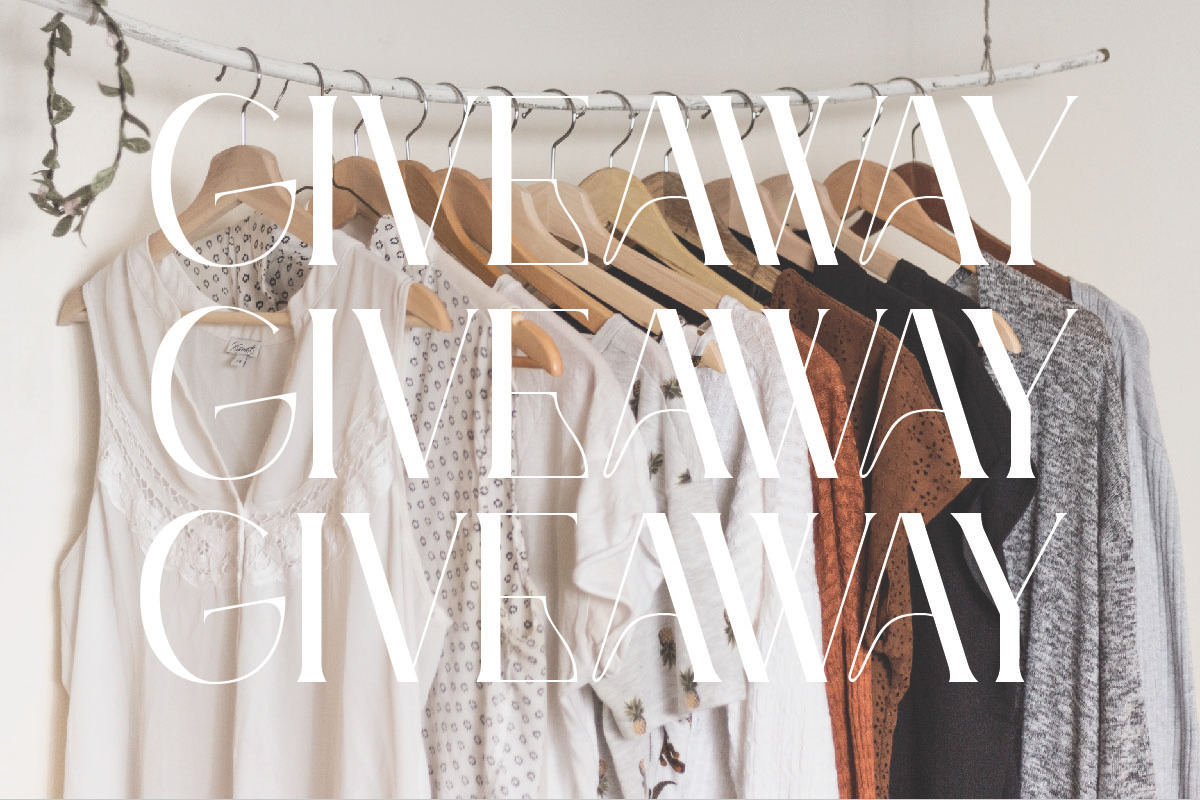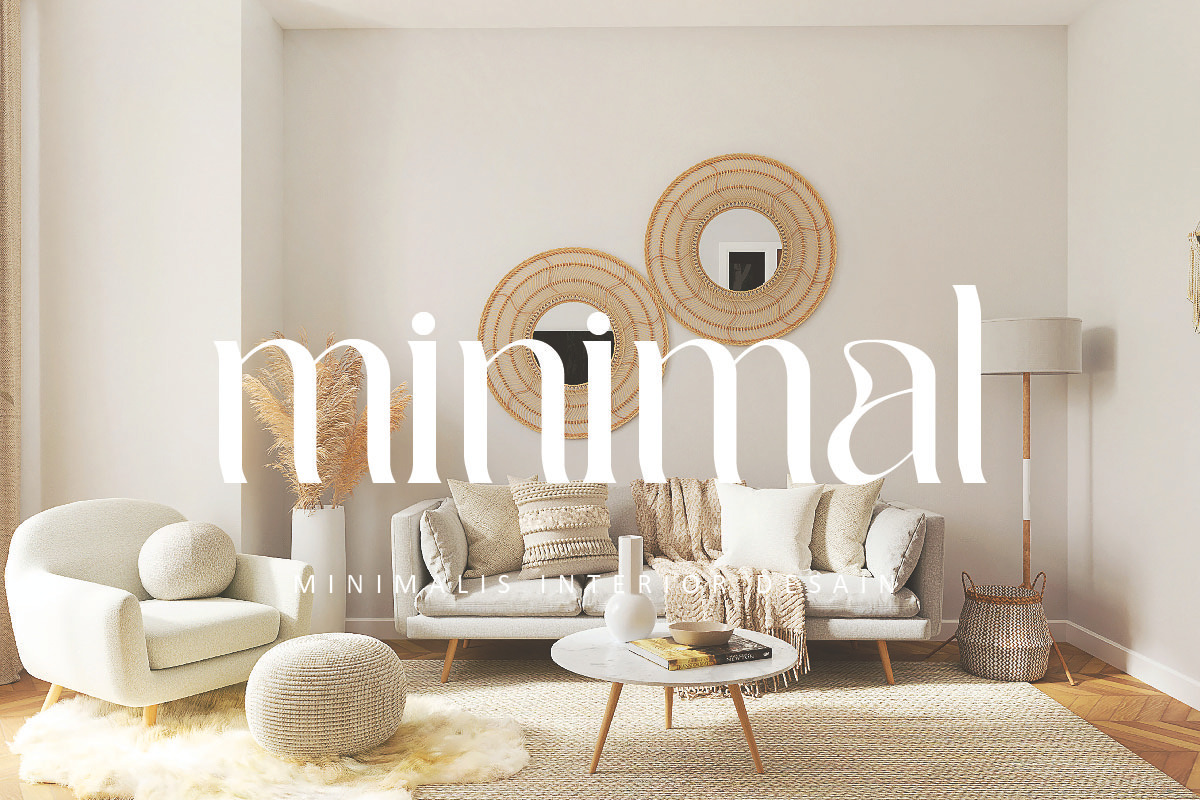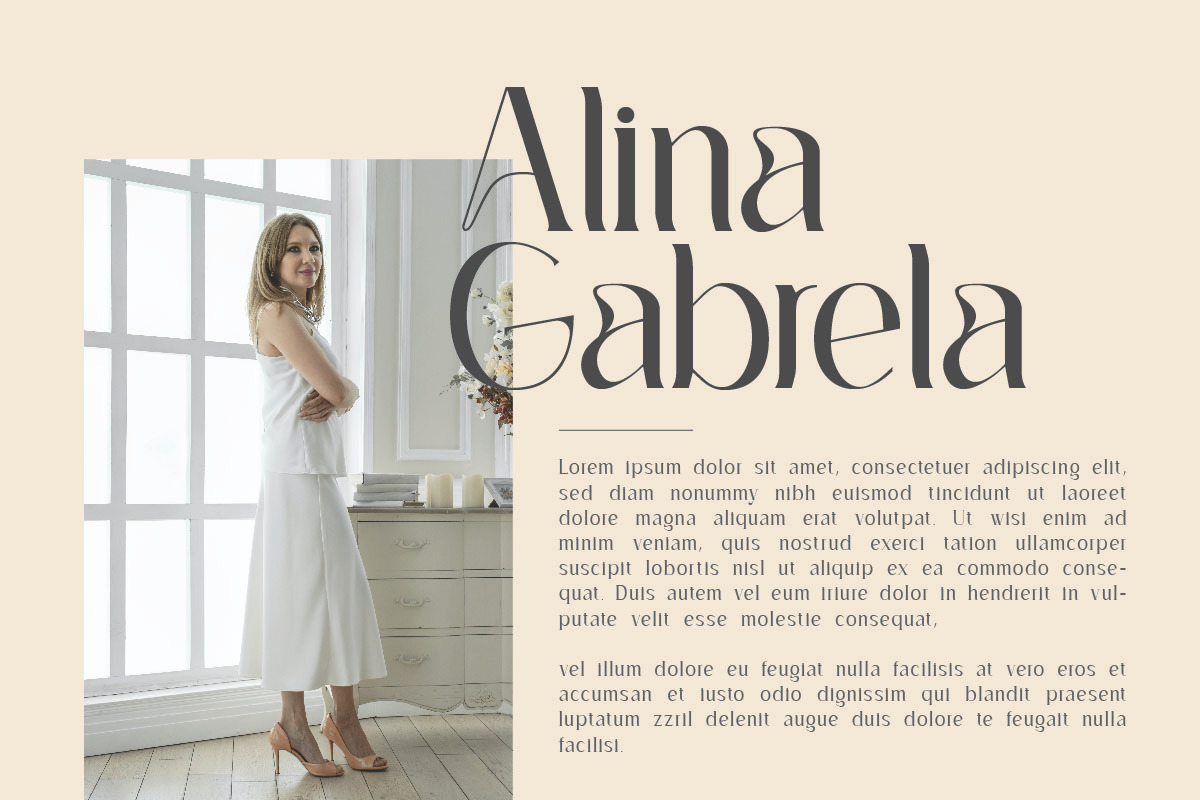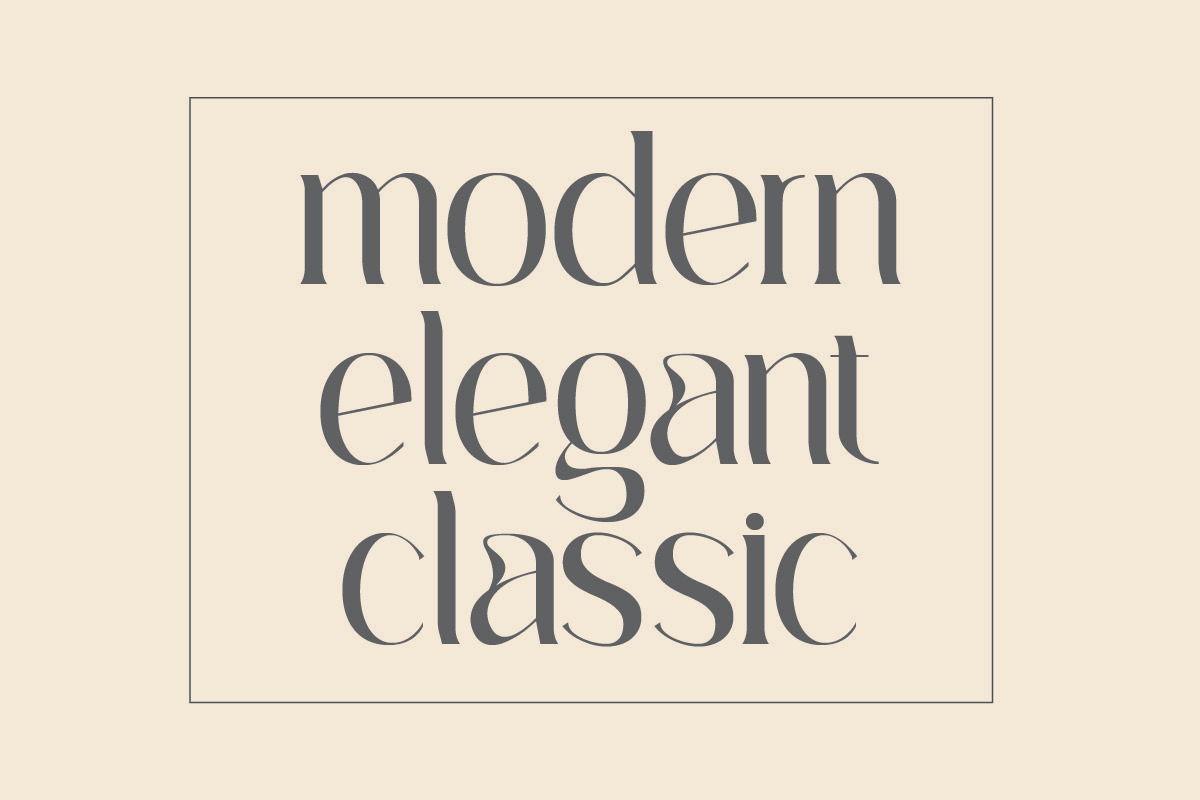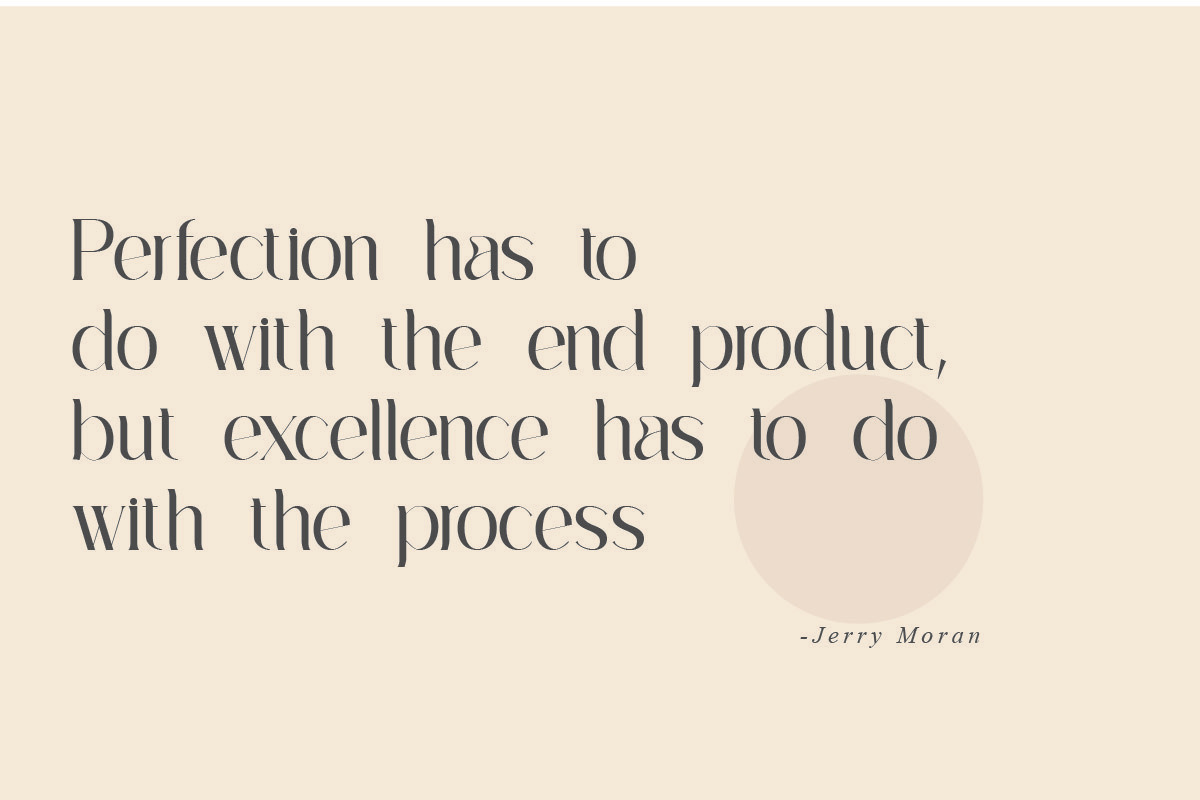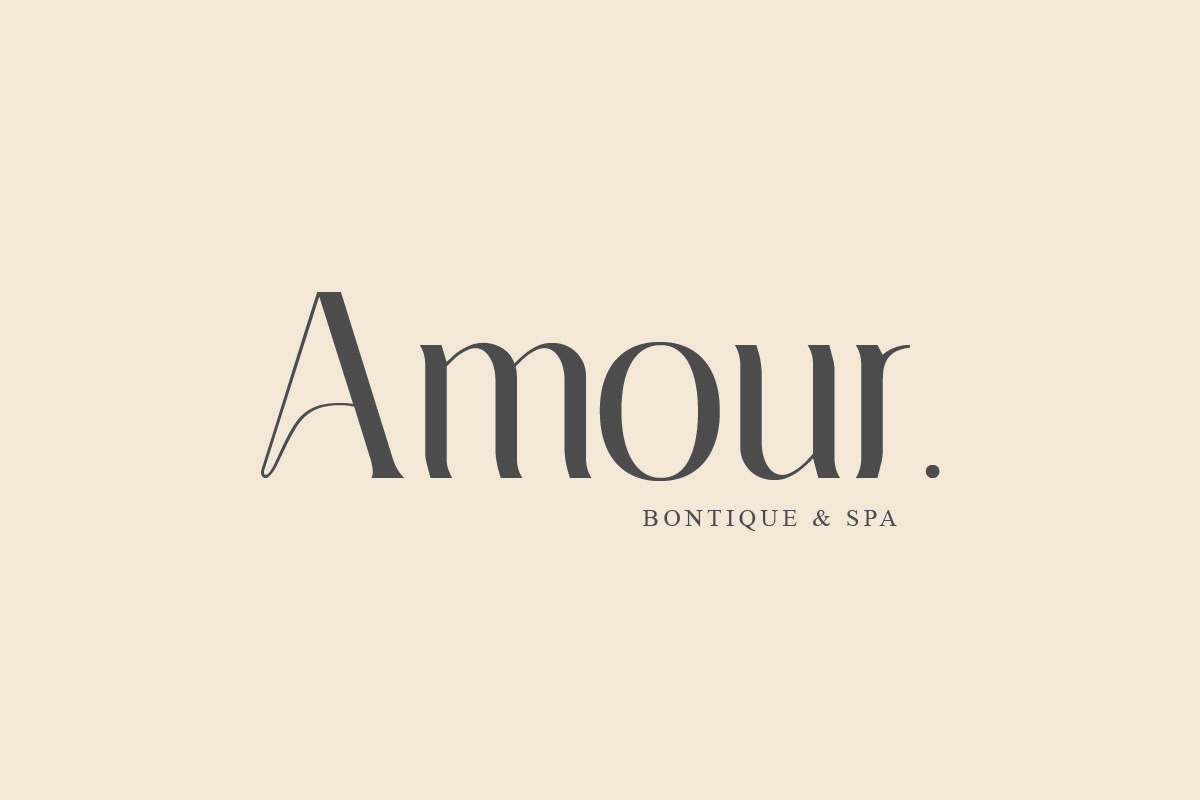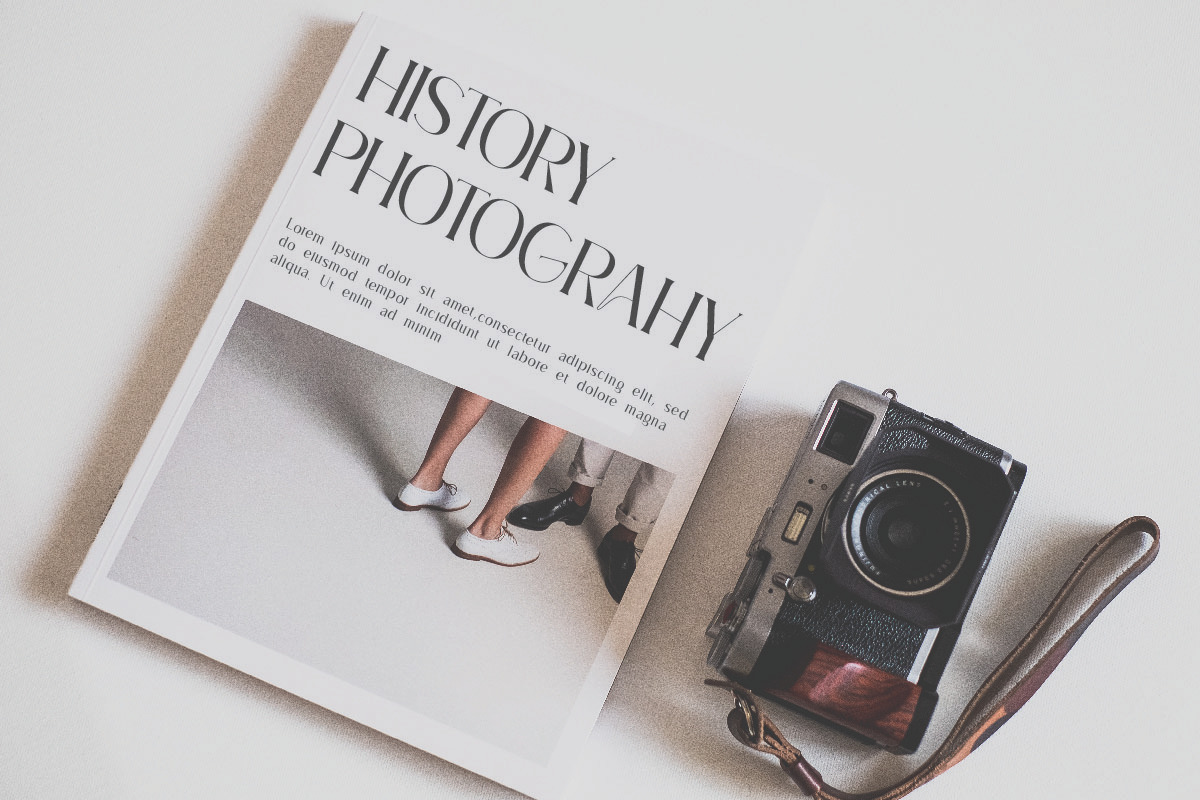
Malden
Malden Elegant serif Font typeface with beautiful alternate, special glyphs, ornament and multilingual support. It's a very versatile font that works great in large and small sizes. Perfect for editorial projects, Logo design, Clothing Branding, product packaging, magazine headers, or simply as a stylish text overlay to any background image.
Features: Lowercase and Uppercase Alternate Numerals & Punctuation